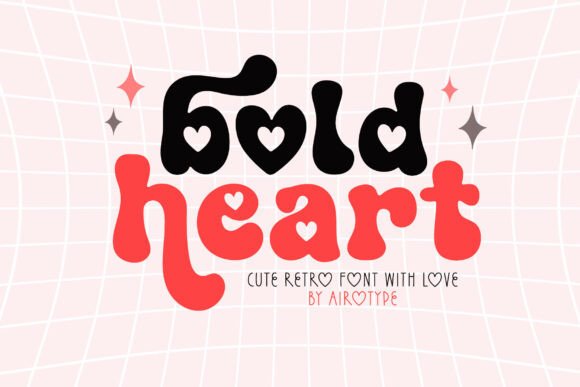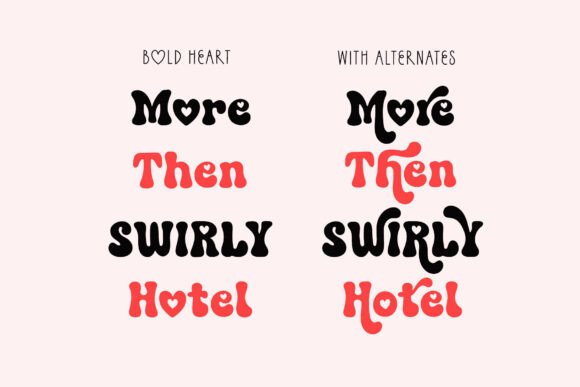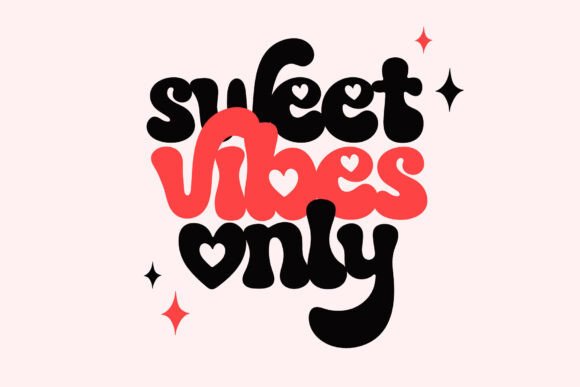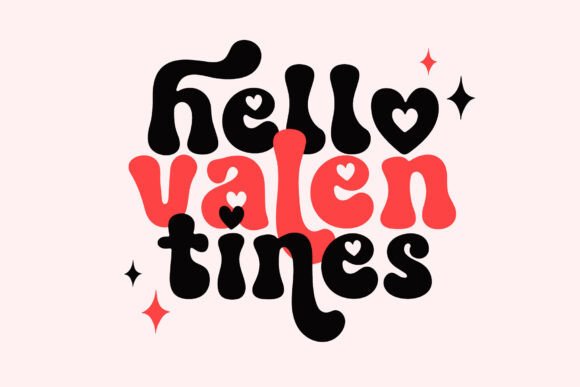
Bold Heart Font: A Cute Retro Display Font for Valentine’s & Crafting
About the Bold Heart Font
From logos to headlines, the Bold Heart Font is the perfect choice for making a lasting impression. Bold Heart is cute retro font with heart accent. This font has lovely and fun vibes. This font has some extra alternates for more options in designing.
Bold Heart is lovely font for wide ranges of design with cute and retro vintage theme, such as valentines day, t-shirt, display, crafting, sticker, quotes, tumbler, sublimation, and many more.
Bold Heart’s playful retro style shines in headlines, short-form content, and branding for products targeting a young, female demographic. It’s ideal for packaging, social media graphics, and logos needing a touch of vintage charm. However, its decorative nature makes it unsuitable for body text or UI elements requiring high readability.
Pairing Bold Heart with a clean sans-serif like Montserrat or a slightly more geometric sans-serif such as Futura will create a balanced design. For a warmer feel, consider a script font like Great Vibes, but use it sparingly to avoid visual clutter. The font’s overall personality is best described as cheerful and nostalgic, lending itself well to projects that embrace a fun, retro aesthetic.
Bold Heart Font Usage Examples
Bold Heart Font Example